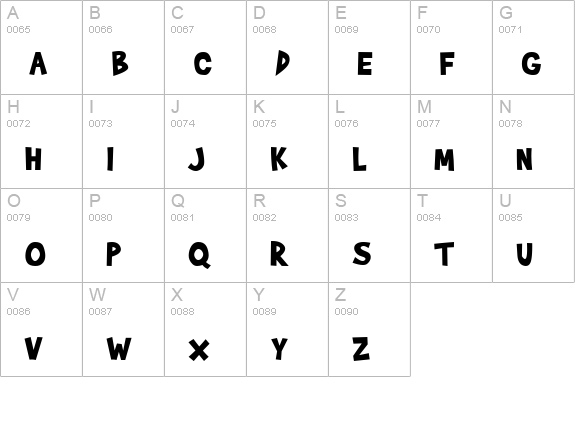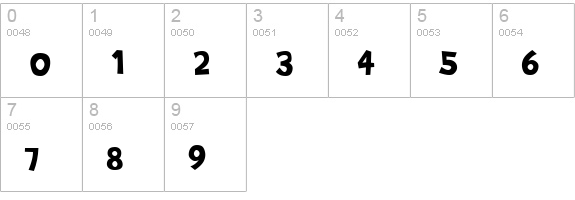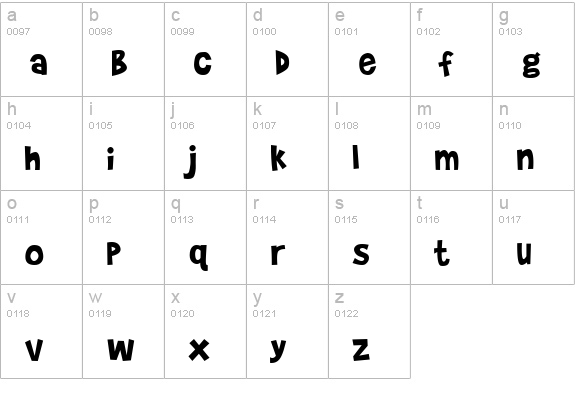
Brady Bunch Remastered Font Details
Introducing the Brady Bunch Remastered font, a delightful and nostalgic typeface inspired by the iconic television show from the 1970s. This charming font captures the essence of retro design with its playful curves and vintage flair, making it perfect for adding a touch of fun to your projects. Brady Bunch Remastered font is a versatile choice for a wide range of design applications, from branding and packaging to posters and social media graphics. Its clean lines and legible characters ensure readability while exuding a sense of whimsy and warmth. Best of all, Brady Bunch Remastered font is completely free to download at FontsMarket.com. So why wait? Add a touch of retro charm to your designs today with this delightful and timeless typeface.